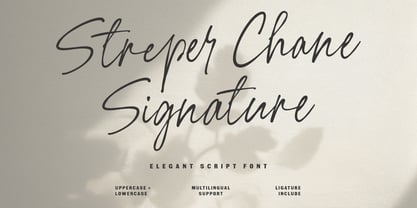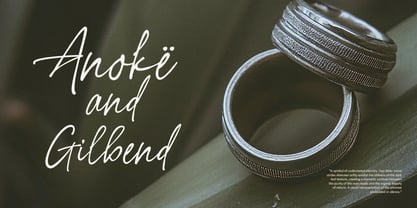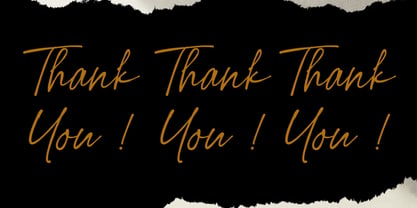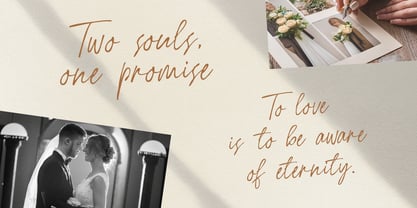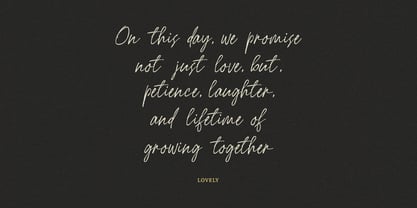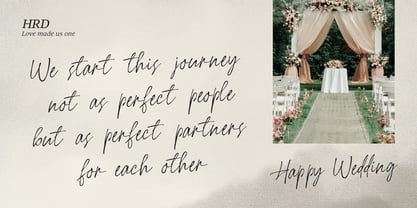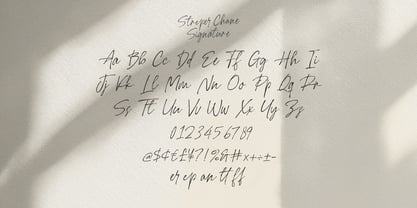
MC Streper Chane
by Maulana Creative
The MC Streper Chane Font Family was designed by Gilang Maulana and published by Maulana Creative. MC Streper Chane contains 1 styles. More about this family
Streper Chane is an exquisite signature script font designed to bring a touch of personal elegance to your creative projects. Characterized by its fluid, natural strokes and sophisticated flair, this font perfectly mimics authentic handwriting. It features a full set of uppercase and lowercase letters, numbers, punctuation, and decorative ligatures. Ideal for luxury branding, wedding invitations, fashion photography overlays, sleek logos, and social media quotes, Streper Chane adds a timeless and professional aesthetic to any design.
Designers: Gilang Maulana
Foundry: Maulana Creative